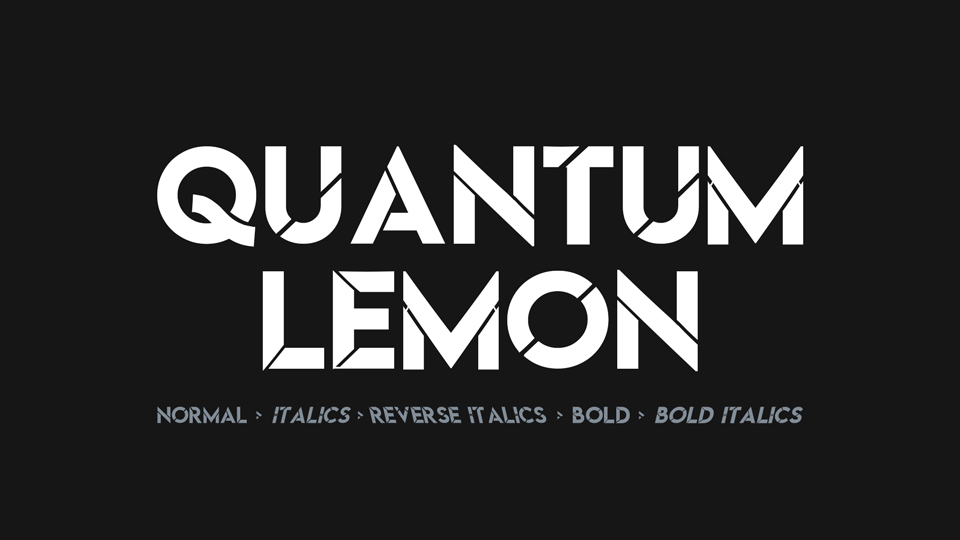
Download Quantum Lemon font, a modern geometric sans serif typeface with sharp stencil look. Quantum Lemon is suitable for logos, headlines and display design pieces as well as short length text blocks.
Designer: Devils King